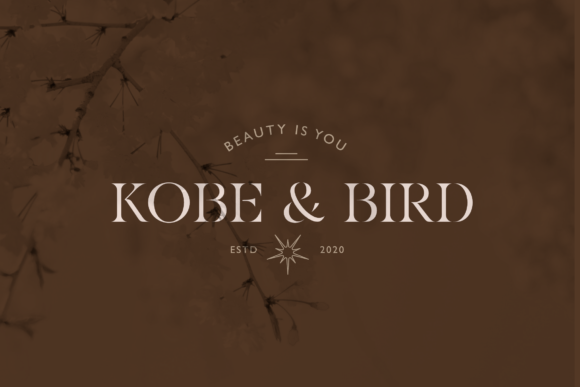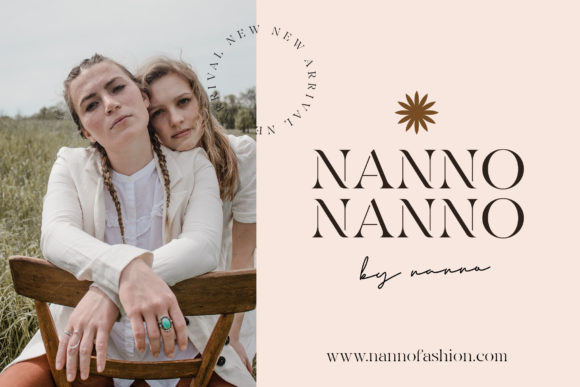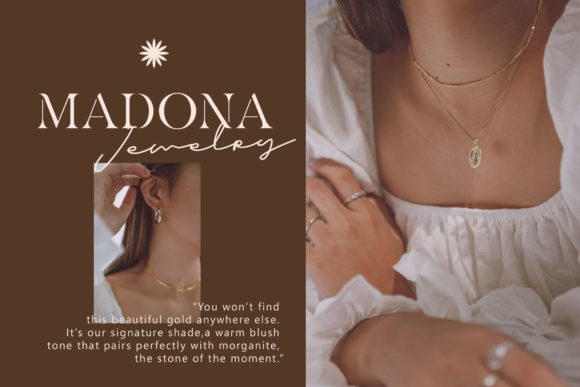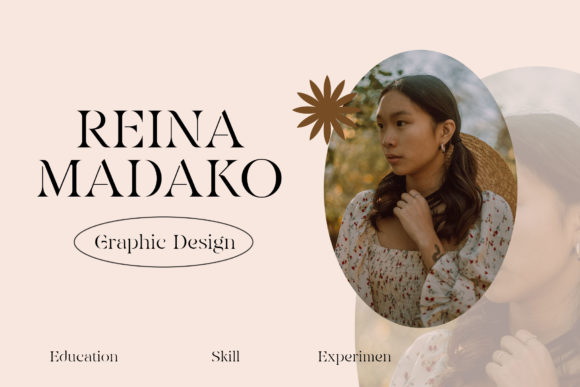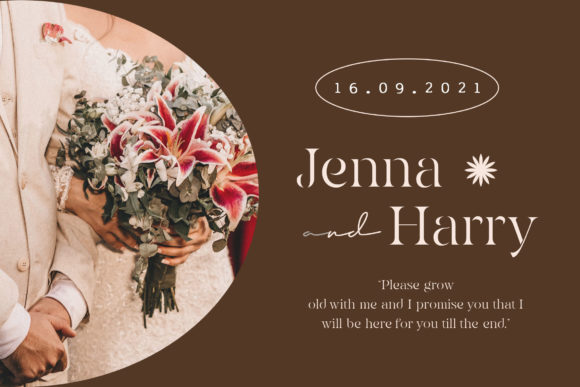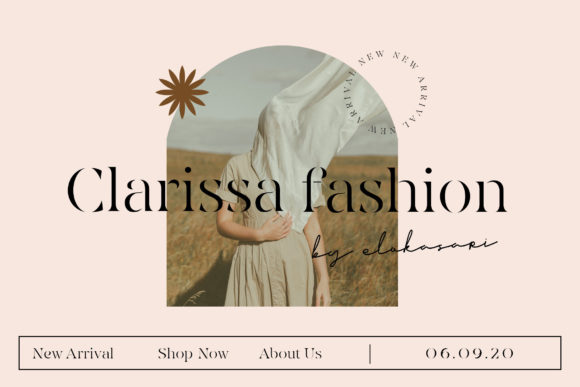
Eiosaka Font: Elevate Your Designs with Elegance and Sophistication
In the world of typography, fonts play a crucial role in conveying the tone and personality of a design. For designers and crafters seeking a modern serif font that exudes elegance and sophistication, Eiosaka is an excellent choice. This beautiful font is perfect for a variety of designs that require a personalized style, such as wedding invitations, thank you cards, weddings, greeting cards, logos, and more.
The Beauty of Eiosaka Font
Eiosaka is a stunning serif font that boasts a unique blend of classic and modern elements. Its elegant lines, refined curves, and precise letter spacing make it an ideal choice for designs that demand a high level of sophistication. Whether you’re creating a wedding invitation, a logo, or a greeting card, Eiosaka is sure to impress.
Key Features of Eiosaka Font
- Modern Serif Design: Eiosaka’s serif design is both modern and classic, making it versatile enough to be used in a wide range of designs.
- Elegant Lines and Curves: The font’s elegant lines and refined curves give it a sophisticated look that’s perfect for high-end designs.
- Precise Letter Spacing: The precise letter spacing ensures that the text is easy to read and looks great in both digital and print formats.
- Personalized Style: Eiosaka’s unique design makes it perfect for designs that require a personalized style, such as wedding invitations and greeting cards.
Uses of Eiosaka Font
Eiosaka is a versatile font that can be used in a variety of designs, including:
- Wedding Invitations: Eiosaka’s elegant design makes it perfect for wedding invitations, adding a touch of sophistication and romance to your special day.
- Thank You Cards: The font’s refined curves and precise letter spacing make it ideal for thank you cards, allowing you to express your gratitude in style.
- Weddings: Eiosaka can be used in a variety of wedding-related designs, such as wedding programs, place cards, and more.
- Greeting Cards: The font’s modern serif design makes it perfect for greeting cards, adding a touch of elegance to your messages.
- Logos: Eiosaka’s unique design makes it an excellent choice for logos, allowing you to create a memorable brand identity.
Why Choose Eiosaka Font?
With so many fonts available, why choose Eiosaka? Here are just a few reasons:
- Unique Design: Eiosaka’s modern serif design sets it apart from other fonts, making it a great choice for designers seeking a unique look.
- Elegant and Sophisticated: The font’s elegant lines and refined curves give it a sophisticated look that’s perfect for high-end designs.
- Versatile: Eiosaka can be used in a wide range of designs, from wedding invitations to logos.
- Easy to Read: The font’s precise letter spacing ensures that the text is easy to read, making it perfect for both digital and print formats.
In conclusion, Eiosaka is a beautiful and modern serif font that’s perfect for designers and crafters seeking a sophisticated and elegant look. Its unique design, elegant lines, and refined curves make it an excellent choice for a variety of designs, from wedding invitations to logos. With its versatility, ease of use, and timeless appeal, Eiosaka is sure to become a favorite font in your collection.
Get Ready to Elevate Your Designs with Eiosaka Font